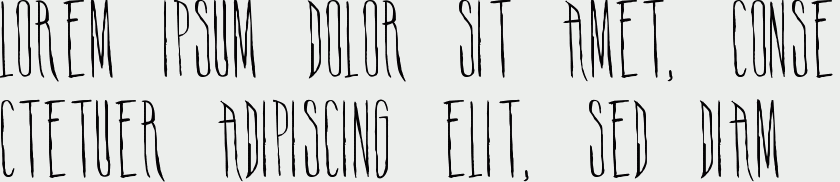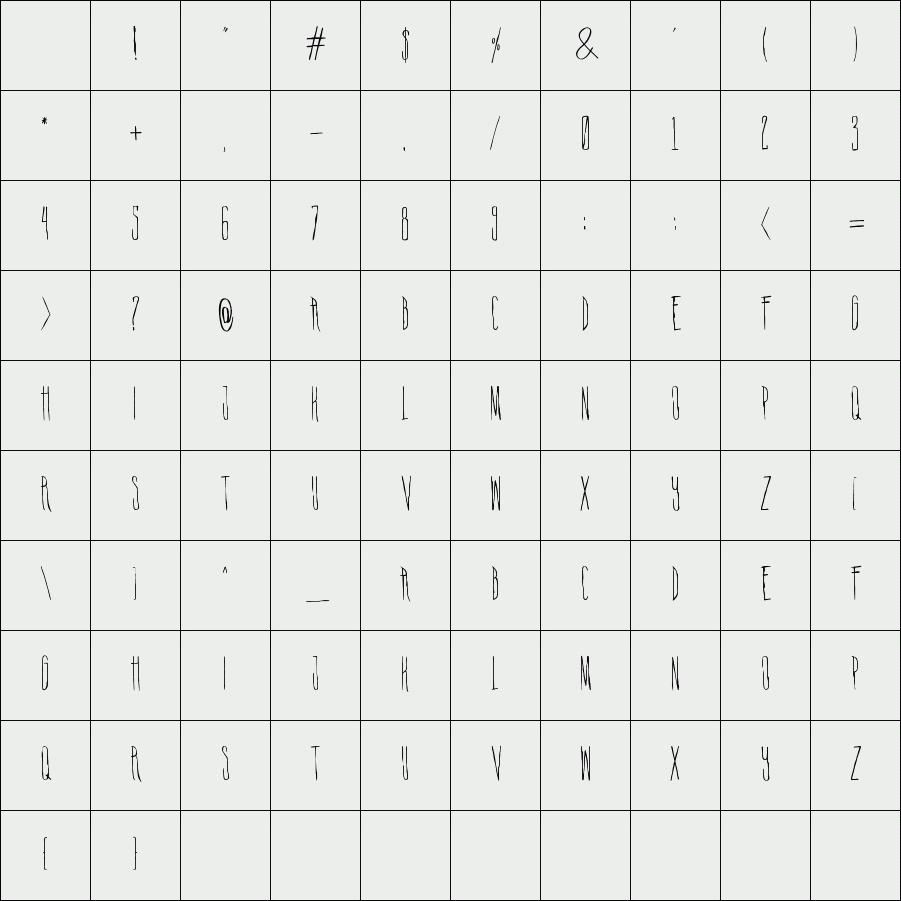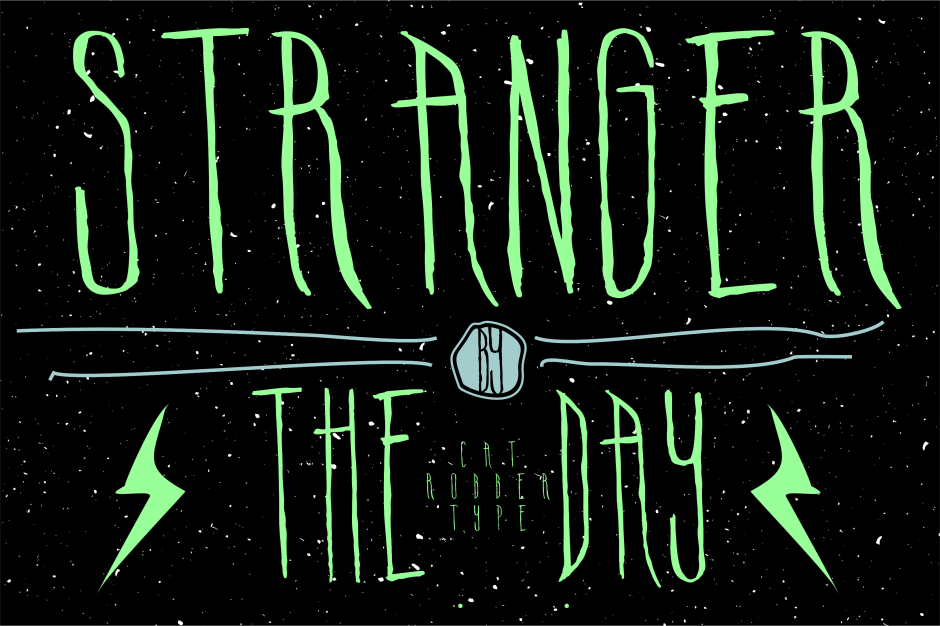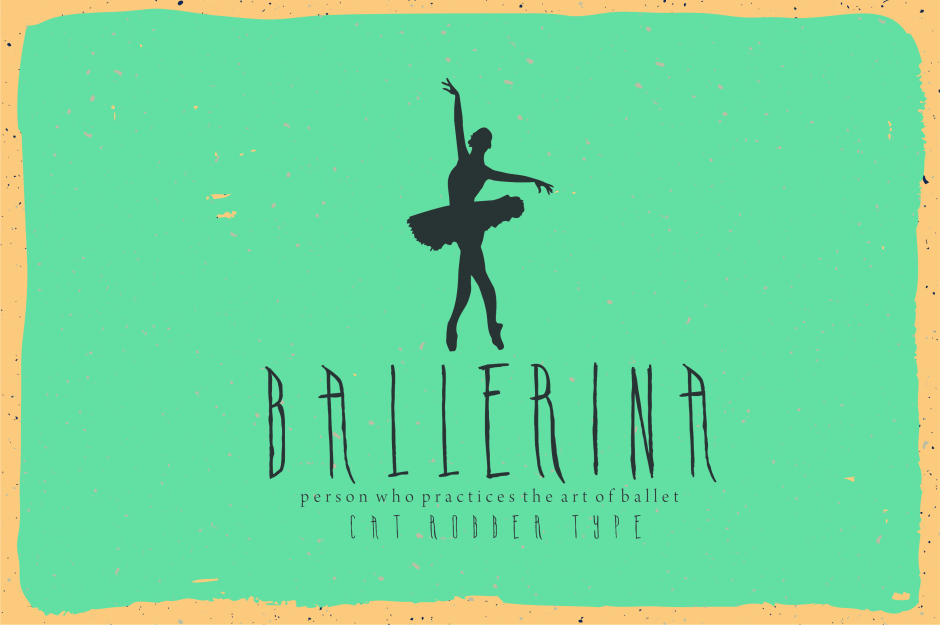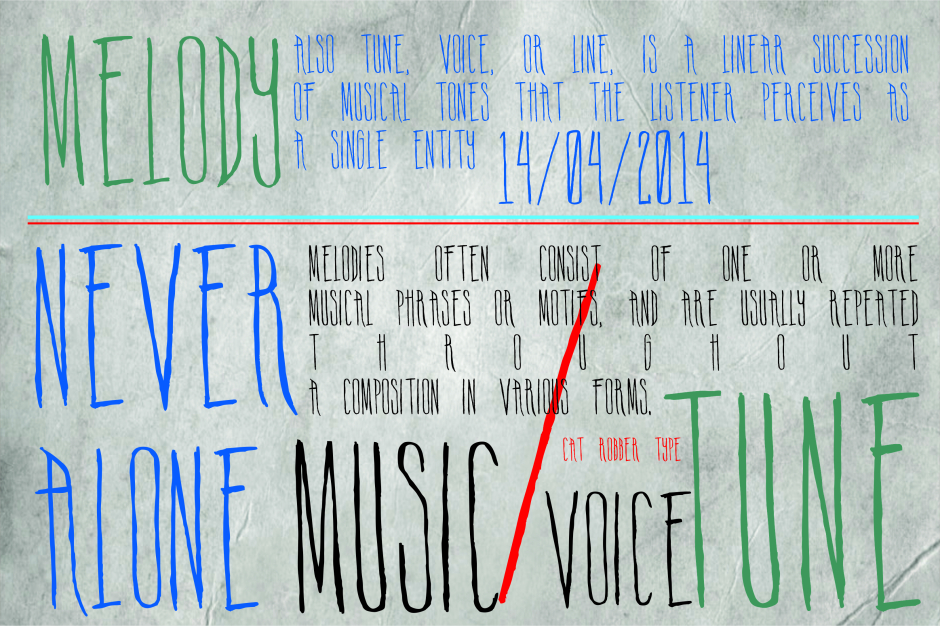
skinny
skinny is a handwriting-style font, skinny inspired from the movie nightmare before Chrismast. where the jack is very slim figure and tall, this font is very suitable for the type logo design company or as a food product, children's books, posters and even can be used to type horror, but did not rule could be used for other design for your creative